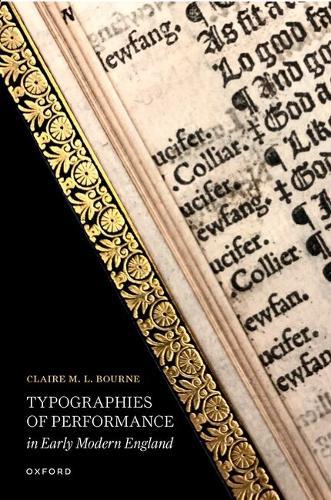
Typographies of Performance in Early Modern England
Typographies of Performance in Early Modern England is the first book-length study of early modern English playbook typography. It tells a new history of drama from the period by considering the page designs of plays by Shakespeare and others printed between the end of the fifteenth century and the beginning of the eighteenth century. It argues that typography, broadly conceived, was used creatively by printers, publishers, playwrights, and other agents of the book trade to make the effects of theatricality--from the most basic (textually articulating a change in speaker) to the more complex (registering the kinesis of bodies on stage)--intelligible on the page.
The coalescence of these experiments into a uniquely dramatic typography that was constantly responsive to performance effects made it possible for 'plays' to be marketed, collected, and read in the sixteenth and seventeenth centuries as a print genre distinct from all other genres of imaginative writing. It has been said, 'If a play is a book, it is not a play.' Typographies of Performance in Early Modern England shows that 'play' and 'book' were, in fact, mutually constitutive: it was the very bookishness of plays printed in early modern England that allowed them to be recognized by their earliest readers as plays in the first place.